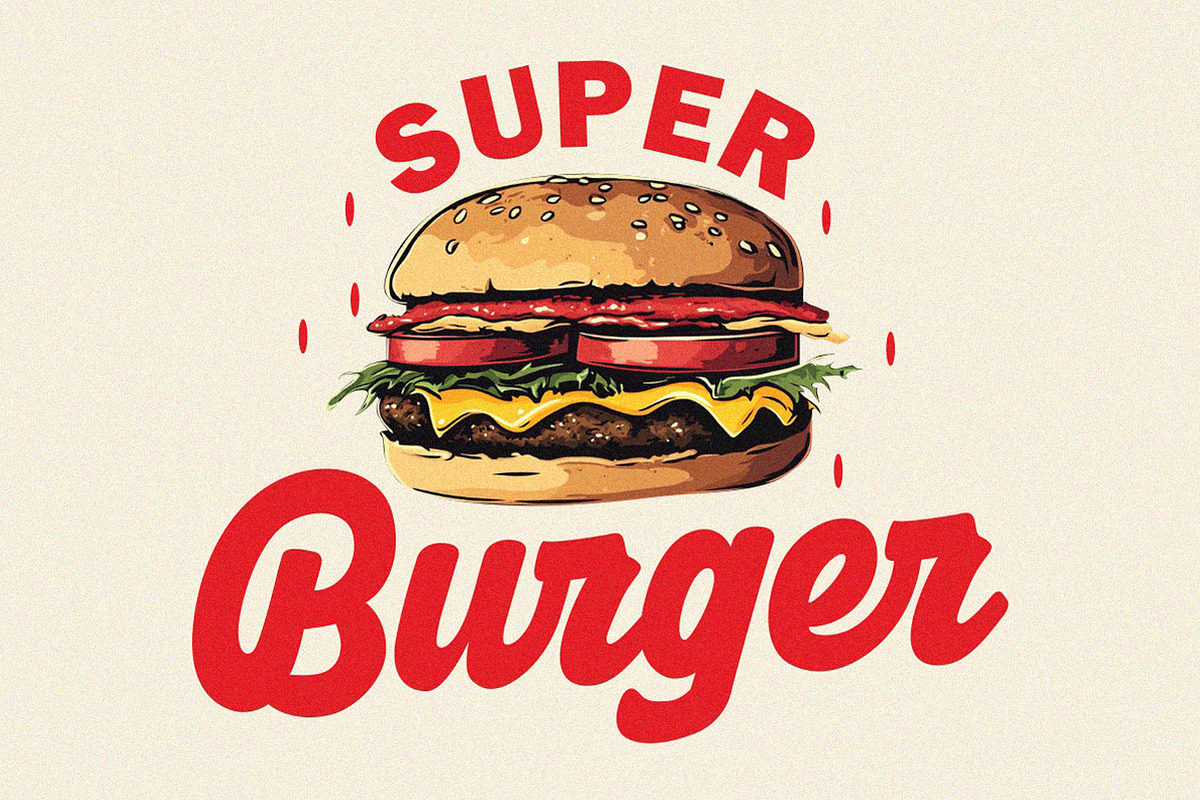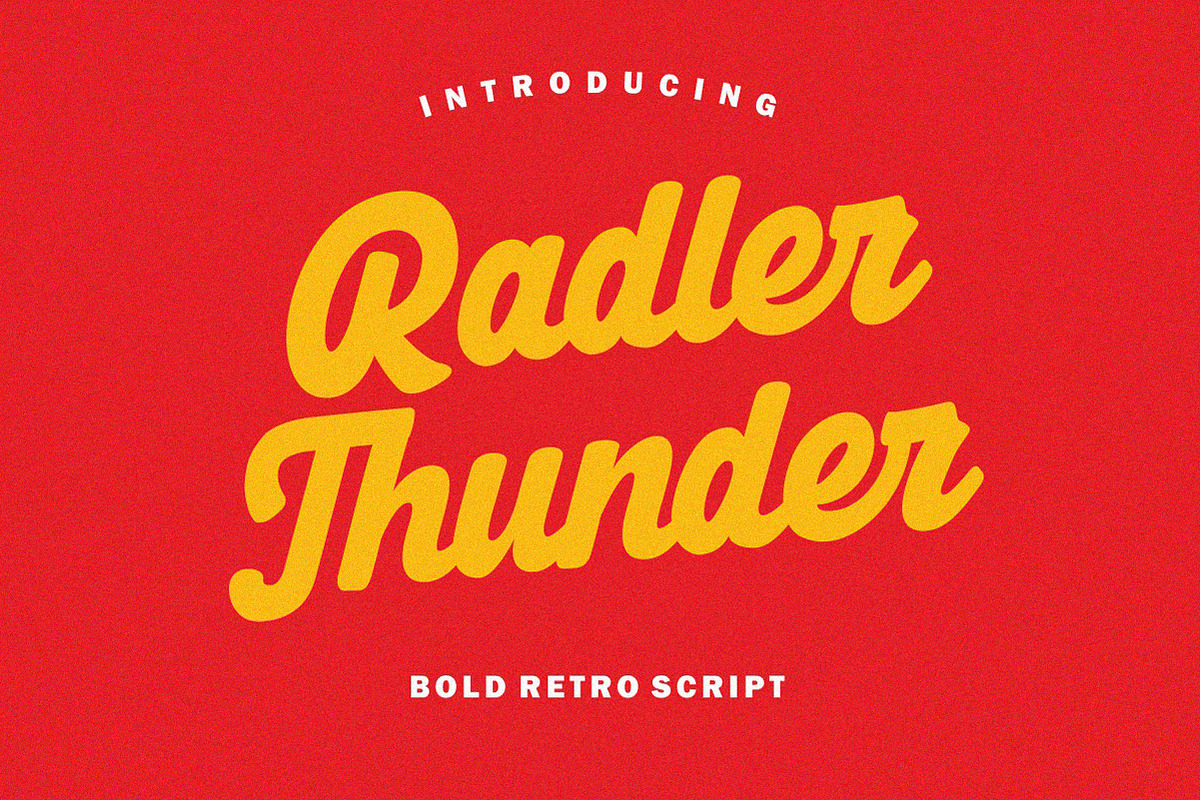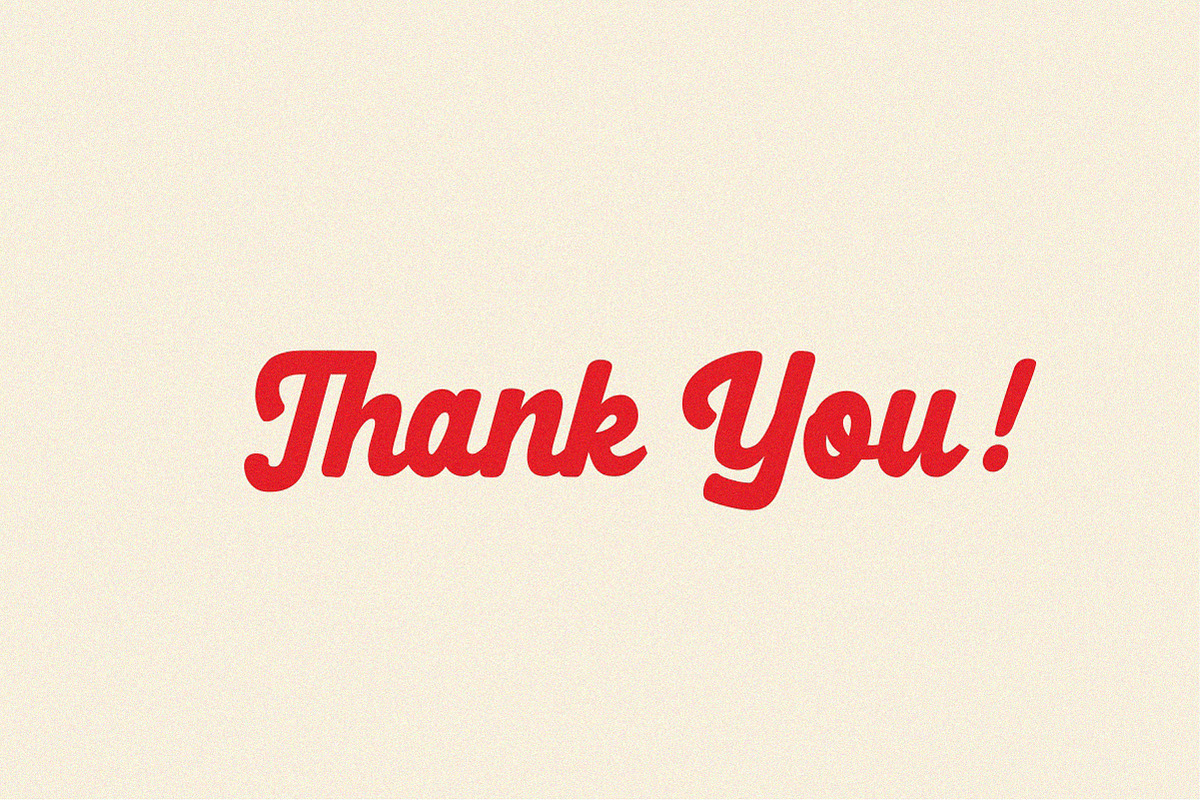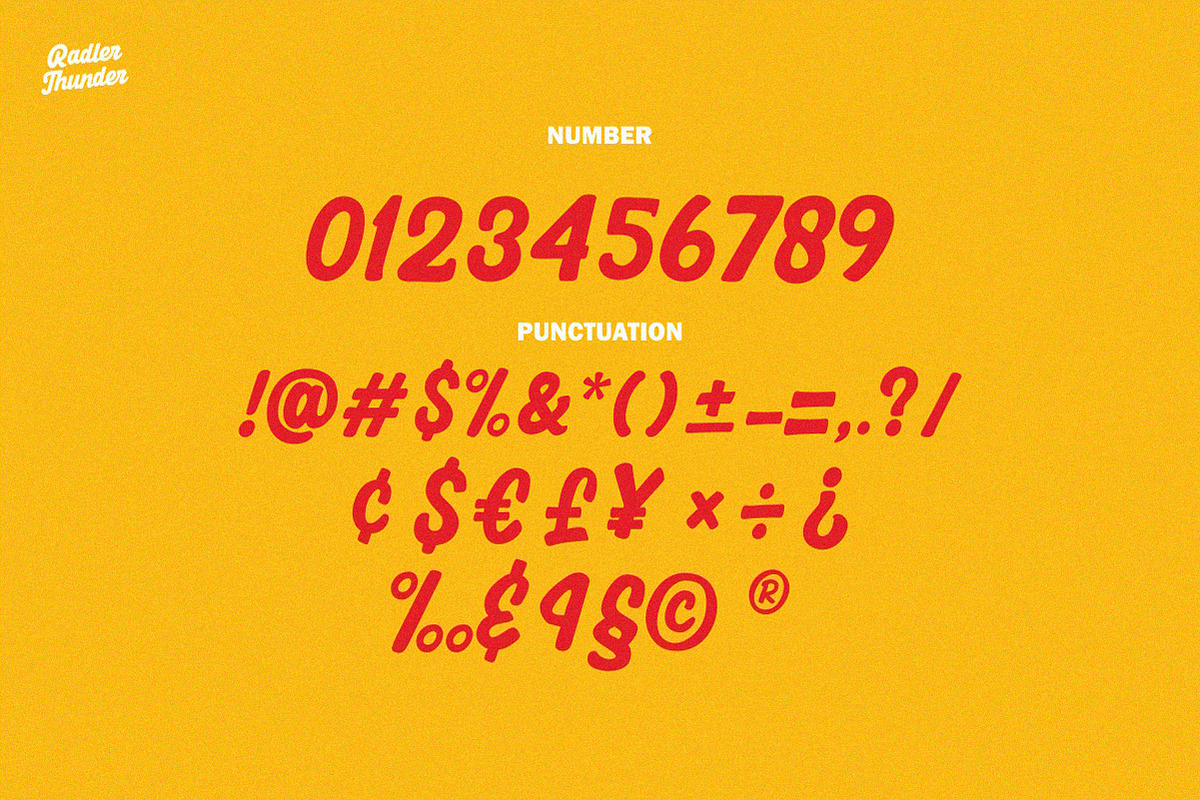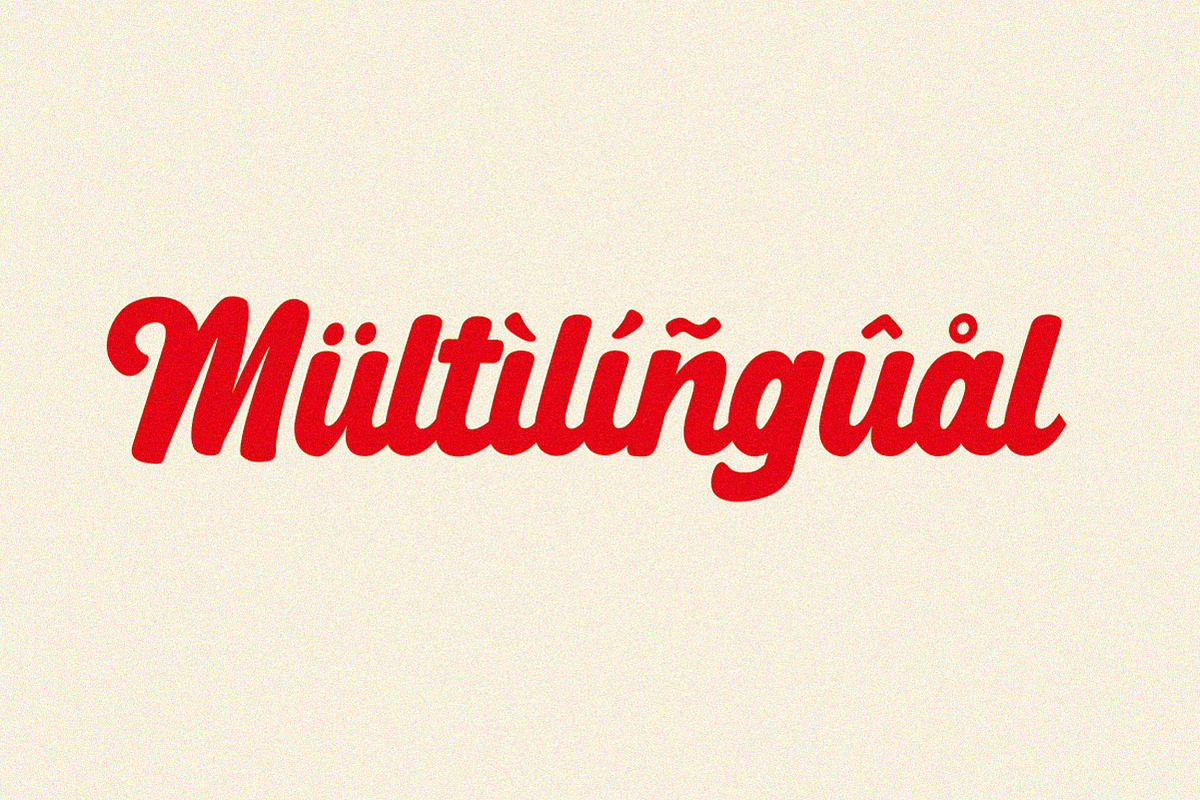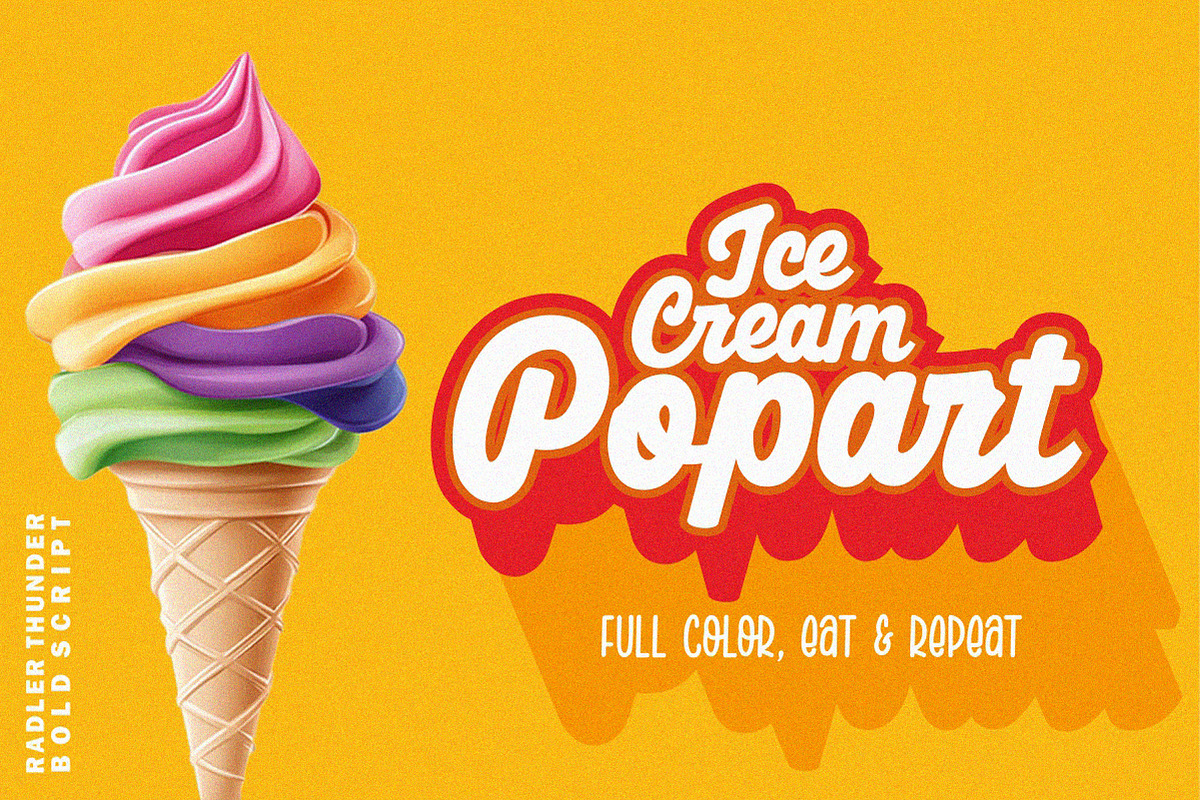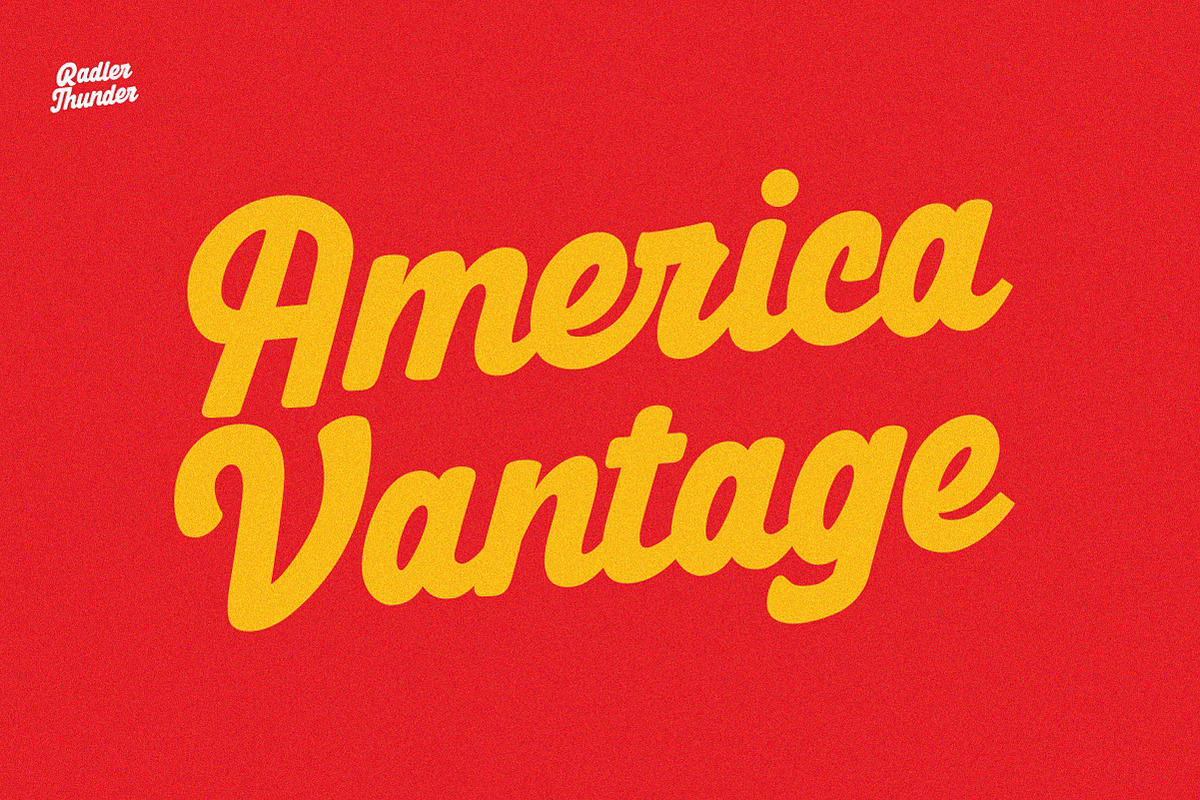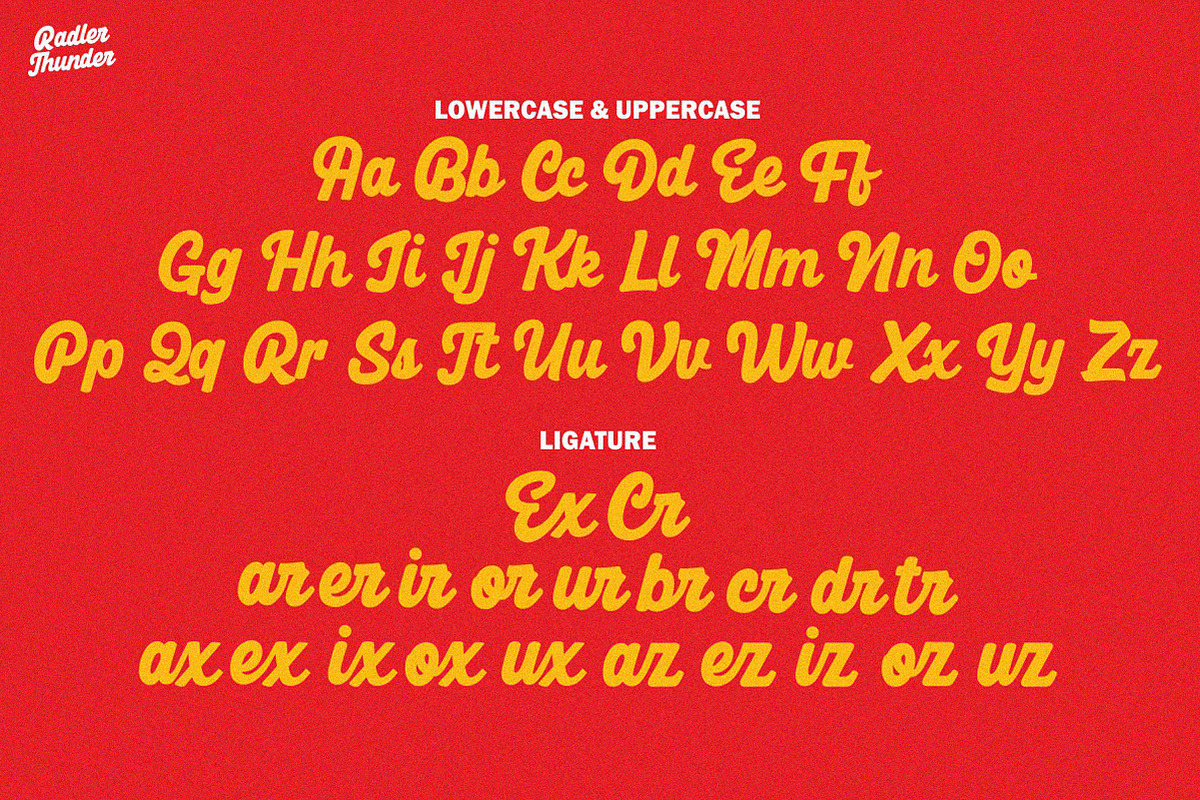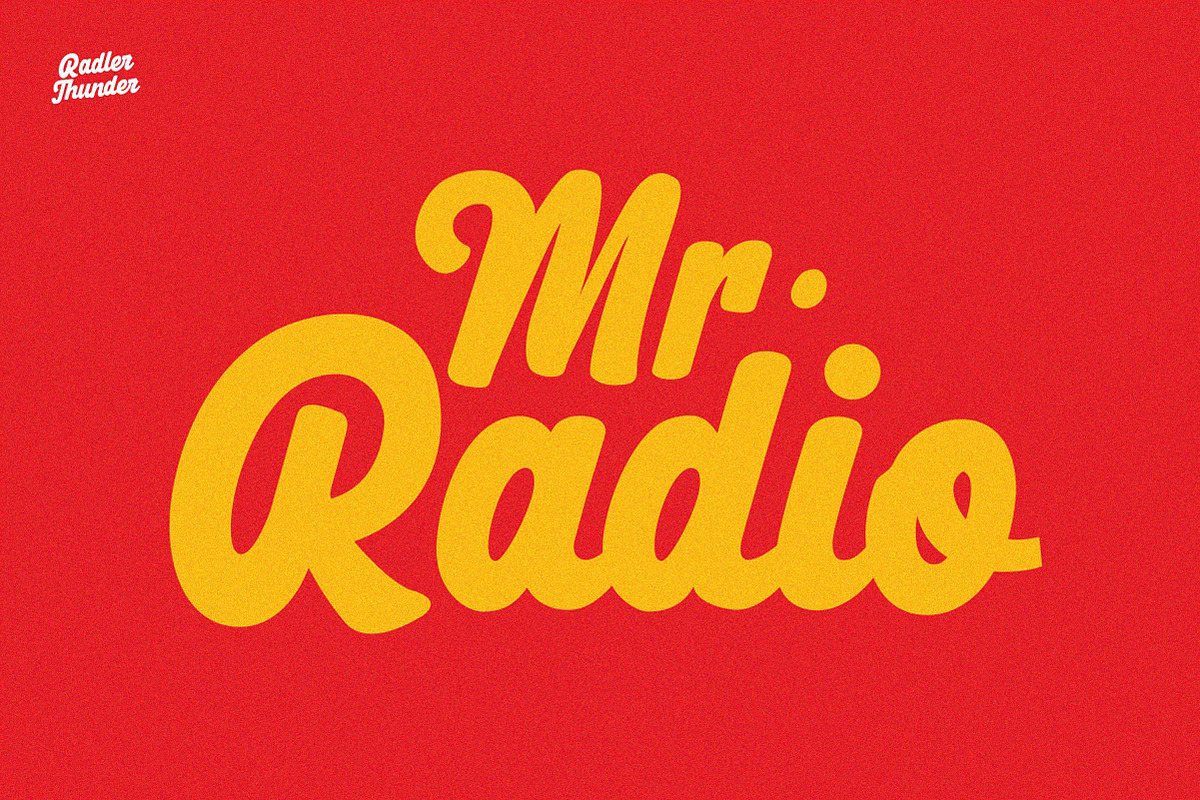
Radler Thunder – Bold Retro Script
Radler Thunder – Bold Retro Script Font for Creative Projects
Radler Thunder is a striking and unique script font that blends classic retro style with modern design principles. With its precise letterforms and bold personality, this font is perfect for adding an eye-catching touch to your designs.
Whether you're working on logos, advertisements, branding projects, product design, magazines, stationery, or business materials, Radler Thunder will elevate your creative vision. Its elegant, vintage charm makes it ideal for corporate branding, invitations, photo watermarks, labels, and more.
- Bold & Unique Script Style – Perfect for impactful headlines and logos.
- Versatile Usage – Ideal for both modern and retro-themed designs.
- Perfect for Branding & Business Projects – Stand out in corporate identity and creative branding.
Bring a touch of retro elegance to your next project with Radler Thunder – the ultimate font for designers looking to make a statement!